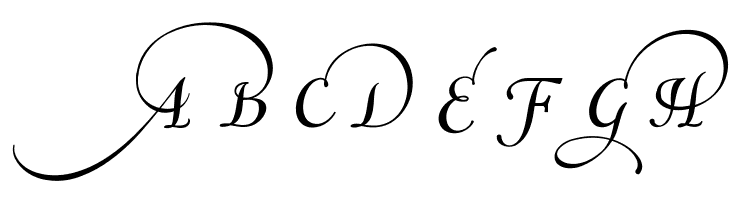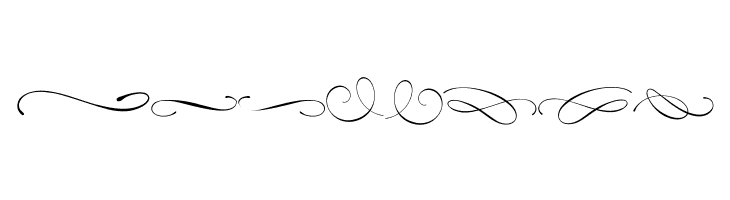
An elegant script font with flowing curves and intricate details, reminiscent of classic calligraphy.
A collection of decorative swashes and flourishes with intricate loops and curves.